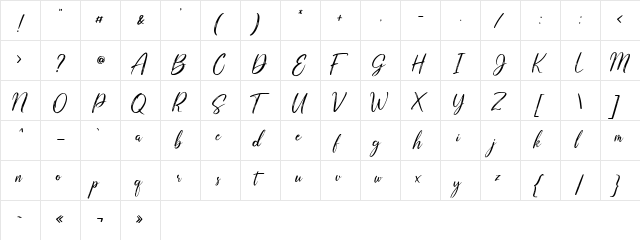
Sphere Alt
Design Context for Sphere Typeface
Sphere is a composed and adaptable typeface that performs quietly and consistently across a wide range of design contexts.